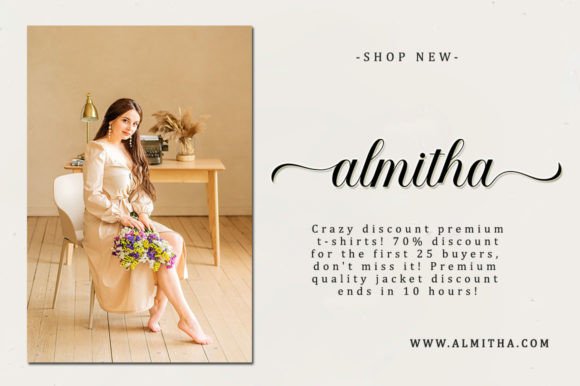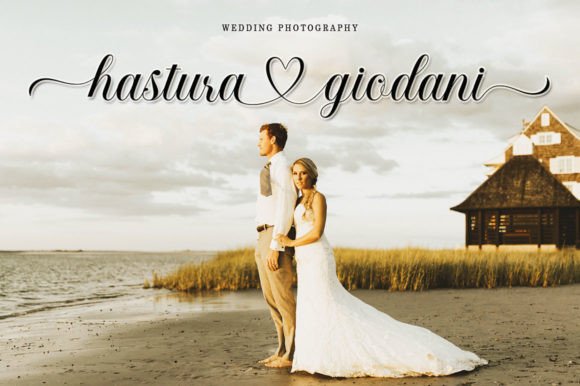
Hailea Honey Font
Hailea Honey is a beautiful script perfect for branding, wedding invitations, and other romantic projects.This love-centered look makes it perfect for use in all your design projects be it logos, labels, packaging designs, blog titles, posters, wedding designs, social media posts, Instagram designs, etc. 🙂